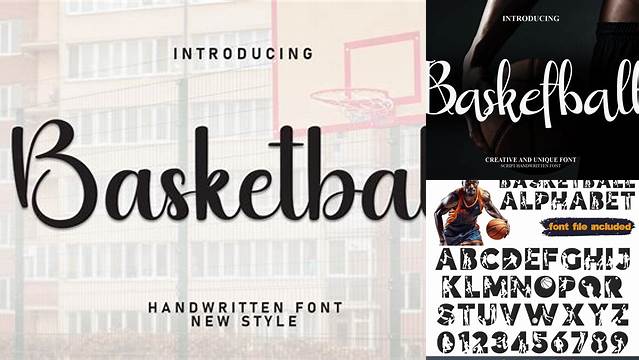
Hey guys! Are you looking to spice up your designs with some dynamic and energetic fonts? If you’re a basketball enthusiast, a designer working on a sports-themed project, or just someone who loves the bold look of basketball-inspired typography, you’ve come to the right place. This article is your ultimate guide to finding and downloading free basketball font styles. We’ll cover everything from classic varsity fonts to modern, edgy designs, ensuring you find the perfect typeface to make your project a slam dunk! So, let's dribble into the world of basketball font style free downloads and explore the fantastic options available to you.
1. Classic Varsity Fonts for Basketball Designs
When you think of basketball, one of the first font styles that comes to mind is the classic varsity font. These fonts evoke a sense of tradition, teamwork, and athletic spirit. They’re perfect for jerseys, posters, and anything that needs a strong and sporty feel. The beauty of these fonts lies in their simplicity and legibility, making them ideal for both headings and body text. The blocky, sans-serif style is instantly recognizable and carries a timeless appeal that resonates with fans and players alike. If you are working on a project that requires conveying a sense of history and competitive spirit, then classic varsity fonts are an excellent choice. You can find a variety of free varsity fonts online, each with its unique twist. Some might have slightly rounded edges for a softer look, while others stick to the sharp, angular forms for a more assertive presence. Experiment with different weights and styles to find the perfect fit for your design. Remember, the goal is to capture the essence of basketball – its energy, its tradition, and its unwavering spirit of teamwork. So, go ahead and explore the world of classic varsity fonts and see how they can elevate your designs to a whole new level of sporty sophistication.
2. Modern and Edgy Basketball Lettering Styles
If classic isn't quite your vibe, no worries! The world of basketball font style free downloads also includes some seriously modern and edgy options. These fonts break away from the traditional varsity look, offering a more contemporary feel. Think sharp angles, bold strokes, and unique letterforms that scream energy and innovation. These styles are perfect for projects that need a modern twist, like social media graphics, promotional materials, or even a fresh take on team logos. What makes these fonts stand out is their ability to capture the fast-paced, dynamic nature of basketball. They often incorporate elements that mimic the movement of the ball, the swish of the net, or the intensity of the game. Imagine using a font with slanted lines to convey speed, or one with a slightly distressed texture to add a raw, urban edge. These modern styles allow you to push the boundaries of traditional design, creating visuals that are both eye-catching and impactful. So, if you're looking to inject some serious energy into your project, dive into the world of modern and edgy basketball lettering styles. You'll find a font that helps you convey the spirit of the game in a fresh and exciting way.
3. Free Basketball Jersey Fonts
When designing a basketball jersey, the font you choose is just as important as the team colors and logo. The font needs to be legible, bold, and instantly recognizable, reflecting the team's identity and spirit. Luckily, there are tons of free basketball jersey fonts available for download. These fonts often feature thick strokes and a strong presence, ensuring they stand out on the jersey. Many of these fonts are inspired by classic athletic lettering, but with modern twists that make them perfect for today's teams. Think of fonts with a slight slant to convey speed, or those with a subtle texture to add a vintage feel. The key is to choose a font that not only looks great but also embodies the team's personality. Is the team known for its aggressive playstyle? A bold, sharp font might be the perfect fit. Or is the team more about teamwork and strategy? A classic, clean font could be a better choice. So, take the time to explore the different options and find a font that truly represents your team. Remember, the right font can make a jersey look professional and inspire confidence on the court.
4. Best Basketball Font for Logos
Your team's logo is the face of your brand, and the font you use plays a crucial role in conveying your message. The best basketball font for logos needs to be versatile, memorable, and easily recognizable. It should capture the essence of your team's identity while remaining legible at various sizes. When choosing a font for your logo, consider the overall aesthetic you want to achieve. Are you aiming for a classic, timeless look? A varsity-style font might be the way to go. Or do you prefer a more modern and edgy feel? A bold, geometric font could be a better choice. It's also important to think about the font's personality. Does it convey strength, speed, or teamwork? The font should align with your team's values and culture. Beyond aesthetics, legibility is key. Your logo will be used in various contexts, from jerseys to merchandise to social media, so the font needs to be easily readable in all these applications. Experiment with different fonts, weights, and styles to find the perfect fit. And don't be afraid to get creative! Sometimes, a unique font can be the element that makes your logo truly stand out.
5. Downloadable Basketball Number Fonts
Numbers are a crucial part of any sports uniform, and choosing the right basketball number fonts can make a big difference in how your team looks on the court. Just like with jersey fonts, number fonts need to be legible, bold, and instantly recognizable. They also need to complement the team's overall aesthetic. Many free downloadable fonts are specifically designed for sports jerseys, offering a range of styles from classic block numbers to more modern, stylized designs. When selecting a number font, consider the size and shape of the numbers themselves. They should be large enough to be easily seen from a distance, and their shape should be consistent with the team's logo and lettering. Think about the spacing between the numbers as well. Too much space can make the numbers look disjointed, while too little space can make them hard to read. Experiment with different fonts and layouts to find the perfect combination. And don't forget to consider the color of the numbers in relation to the jersey color. The numbers should stand out clearly against the background, ensuring they're visible to players, coaches, and fans alike.
6. Free Basketball Font Generators
If you're feeling creative and want to design your own basketball-themed graphics, a free basketball font generator can be a fantastic tool. These online tools allow you to create custom text using a variety of basketball-inspired fonts. Simply type in your text, choose your font style, and customize the colors and effects. Many of these generators offer a range of options, from classic varsity fonts to more modern and edgy designs. You can experiment with different styles and layouts to create unique logos, banners, posters, and more. The best part is that these generators are often very user-friendly, even if you don't have any design experience. You can quickly and easily create professional-looking graphics in just a few minutes. However, it's important to check the licensing terms of the fonts generated by these tools. Some fonts may be free for personal use but require a commercial license for business projects. Always make sure you're using the fonts legally to avoid any copyright issues. But overall, font generators are a great way to unleash your creativity and add a personal touch to your basketball-themed designs.
7. Varsity Font Style Free Download for Basketball
As we've touched on before, varsity fonts are a cornerstone of basketball typography. The varsity font style free download options available are abundant, ranging from classic, straightforward designs to slightly modified versions with unique flairs. These fonts often evoke a sense of tradition and school spirit, making them a perfect fit for high school and college basketball teams. They're also great for any project that needs a bold, athletic feel. When choosing a varsity font, think about the specific look you're going for. A classic block letter varsity font conveys a sense of timelessness and strength. It's a reliable choice for jerseys, posters, and team logos. However, if you want something a little more modern, you might consider a varsity font with rounded edges or a slight slant. These variations can add a touch of personality while still maintaining the classic varsity feel. Also, consider the weight of the font. A heavier font will appear more imposing, while a lighter font can feel more streamlined and modern. Experiment with different weights and styles to find the perfect varsity font for your project. The key is to choose a font that not only looks great but also aligns with the overall aesthetic you want to achieve.
8. Basketball Team Font Styles
Finding the perfect basketball team font styles is crucial for establishing a strong and consistent brand identity. Your team's font should reflect its personality, values, and competitive spirit. It should also be legible and versatile, working well on jerseys, logos, websites, and other marketing materials. When choosing a font for your team, start by considering your team's brand. What message do you want to convey? Are you a team known for your aggressive playstyle? A bold, sharp font might be a good fit. Or are you a team that emphasizes teamwork and strategy? A more classic and balanced font might be a better choice. It's also important to think about your team's history and tradition. If you have a long and storied history, a classic varsity font could be a great way to honor that legacy. However, if you're a newer team looking to make a statement, a more modern and edgy font might be more appropriate. Once you have a good idea of your team's brand, start exploring different font options. Look at a variety of styles, from classic to modern, and see what resonates with you. Don't be afraid to experiment and try something new. The goal is to find a font that not only looks great but also captures the essence of your team's identity.
9. Sports Font for Basketball Designs
In the realm of design, the right sports font for basketball designs can be a game-changer. It's about finding a typeface that not only captures the essence of the sport but also elevates the overall aesthetic of your project. Whether you're crafting a team logo, designing a jersey, or creating promotional materials, the font you choose plays a pivotal role in conveying the energy, passion, and spirit of basketball. When it comes to sports fonts, versatility is key. You need a font that's legible, impactful, and able to work across various applications. Classic varsity fonts, with their bold, blocky letters, are a perennial favorite for their timeless appeal and ability to evoke a sense of tradition and athleticism. However, the world of sports typography extends far beyond the varsity style. Modern, geometric fonts can bring a sleek, contemporary edge to your designs, while script fonts can add a touch of flair and dynamism. Consider the specific context of your project when making your font selection. A logo might call for a bold, distinctive font that commands attention, while a jersey might benefit from a more legible and streamlined typeface. Think about the overall message you want to convey and choose a font that aligns with your vision. Remember, the right sports font can transform your basketball designs from good to great, so take the time to explore your options and find the perfect fit.
10. Basketball Font for T-Shirts
Designing a basketball-themed t-shirt? The font you choose can make or break your design. A great basketball font for t-shirts should be legible, visually appealing, and able to withstand the printing process. It also needs to align with the overall message and style of your shirt. When selecting a font for a t-shirt, legibility is paramount. The font needs to be easily readable, even from a distance. Bold, sans-serif fonts are often a good choice for this reason. Varsity fonts, with their classic athletic aesthetic, are a popular option for basketball t-shirts. However, you're not limited to just varsity styles. Modern, geometric fonts can also work well, providing a clean and contemporary look. Script fonts can add a touch of flair, but be careful to choose one that's still legible when printed on fabric. Beyond legibility, consider the font's personality. Does it convey the energy and excitement of basketball? Or does it have a more classic and understated feel? The font should complement the other design elements on your shirt, such as logos, graphics, and colors. It's also important to consider the printing method you'll be using. Some fonts may not translate well to certain printing techniques. Always do a test print to ensure your font looks its best on the final product. With the right font, your basketball t-shirt will be a slam dunk!
11. Free Athletic Fonts for Basketball
Free athletic fonts for basketball designs are a fantastic resource for anyone looking to create impactful visuals without breaking the bank. These fonts are specifically designed to capture the energy, dynamism, and competitive spirit of sports, making them ideal for a wide range of projects. Whether you're designing a team logo, creating promotional posters, or crafting social media graphics, the right athletic font can elevate your work and help you connect with your audience. One of the most popular styles of athletic fonts is the classic varsity font. These fonts, with their bold, blocky letters, evoke a sense of tradition and teamwork. They're perfect for projects that need a strong, athletic feel. However, there are many other types of athletic fonts available, each with its own unique personality. Modern, geometric fonts can bring a sleek and contemporary edge to your designs, while script fonts can add a touch of flair and dynamism. When choosing an athletic font, consider the overall tone and message of your project. A bold, assertive font might be the best choice for a competitive team, while a more streamlined and modern font could be ideal for a fitness brand. Legibility is also key, especially if you're using the font for body text or smaller applications. Fortunately, there are numerous websites offering free downloads of high-quality athletic fonts, making it easier than ever to find the perfect typeface for your basketball-related designs.
12. Bold Fonts for Basketball Posters
When designing basketball posters, bold fonts are your best friend. They command attention, convey energy, and ensure your message is seen loud and clear. A well-chosen bold font can be the difference between a poster that fades into the background and one that jumps off the wall and grabs your attention. Basketball, by its very nature, is a sport of high energy and intense action. Your posters should reflect this dynamism, and a bold font is a perfect way to achieve this. Think about the kind of message you want to convey. Are you promoting a high-stakes game? A super bold, blocky font will communicate the intensity of the competition. Are you highlighting a star player? A strong, confident font will showcase their talent and charisma. There are countless bold font options to choose from, each with its own unique personality. Classic varsity fonts are always a solid choice for their timeless appeal and athletic feel. However, don't be afraid to explore other styles. Geometric sans-serif fonts can bring a modern edge to your designs, while even some serif fonts, with their strong serifs, can make a bold statement. The key is to choose a font that's not only visually impactful but also legible. Your message won't be effective if people can't read it. Experiment with different font pairings and layouts to create a poster that's both bold and visually appealing. With the right bold font, your basketball posters will be sure to make a slam dunk impression.
13. Best Fonts for Basketball Flyers
Creating a flyer that stands out requires the best fonts for basketball flyers. You need a font that grabs attention, communicates the event's details clearly, and reflects the energy of the game. Flyers are often the first point of contact with potential attendees, so your font choice is crucial in making a strong impression. Think about the purpose of your flyer. Are you promoting a youth league signup? A professional game? A charity event? The font should align with the overall tone and style of the event. For youth leagues, a fun, slightly playful font might be appropriate, while professional games might call for a more serious and impactful typeface. Legibility is paramount when designing flyers. The font needs to be easily readable at a glance, even from a distance. Bold fonts, with their strong presence, are a popular choice for headlines and key information. However, don't overlook the importance of body text. A clean, legible sans-serif font is often the best choice for conveying detailed information like dates, times, and locations. Consider the hierarchy of information on your flyer. Use different font sizes and weights to create visual interest and guide the reader's eye. A bold, large font for the headline, followed by smaller, more legible fonts for supporting details, is a common and effective approach. Don't be afraid to experiment with different font pairings and layouts. The goal is to create a flyer that's not only informative but also visually appealing and memorable. With the right fonts, your basketball flyers will be sure to draw a crowd.
14. Free Sport Fonts for Basketball Teams
If you're looking to create a cohesive and impactful brand identity for your team, free sport fonts for basketball teams are a valuable resource. A well-chosen font can communicate your team's personality, values, and competitive spirit, making it an essential element of your overall branding. When selecting a font for your team, start by considering your team's identity. What kind of image do you want to project? Are you a team known for your aggressive play and intensity? A bold, sharp font might be a good fit. Or are you a team that emphasizes teamwork and strategy? A more classic and balanced font could be a better choice. Think about your team's history and tradition as well. A classic varsity font might be a great way to honor your legacy, while a modern font could signal a fresh, new approach. Versatility is key when choosing a font for your team. You need a font that will work well across various applications, from jerseys and logos to websites and social media graphics. Legibility is also crucial, especially for jersey numbers and team names. Fortunately, there are many websites offering free downloads of high-quality sport fonts that are perfect for basketball teams. Take the time to explore your options and find a font that truly captures the essence of your team. With the right font, you can create a brand identity that's both memorable and impactful.
15. Basketball Themed Fonts Free
Unleash your creativity with basketball themed fonts free for download! These fonts are perfect for adding a sporty and energetic touch to your designs, whether you're working on a team logo, a poster, or a social media graphic. Basketball-themed fonts come in a variety of styles, from classic varsity fonts to modern and edgy designs. This means you can find a font that perfectly matches the tone and style of your project. Varsity fonts, with their bold, blocky letters, are a popular choice for their timeless appeal and athletic feel. They evoke a sense of tradition and teamwork, making them ideal for projects related to school and college basketball. However, don't limit yourself to just varsity fonts. Modern, geometric fonts can bring a sleek and contemporary edge to your designs, while script fonts can add a touch of flair and dynamism. When choosing a basketball-themed font, consider the overall message you want to convey. Are you promoting a high-stakes game? A super bold font will communicate the intensity of the competition. Are you designing a logo for a youth team? A more playful font might be a better choice. Legibility is always important, so make sure the font is easy to read, especially in smaller sizes. There are numerous websites offering free downloads of basketball-themed fonts, so take the time to explore your options and find the perfect typeface for your next project. With the right font, you can create designs that are both visually appealing and impactful.
16. Free Fonts for Basketball Logos
Your logo is the face of your team or brand, making the selection of free fonts for basketball logos a critical decision. The font you choose should not only be visually appealing but also effectively communicate your team's identity and values. A well-chosen font can elevate your logo from ordinary to outstanding, making it memorable and impactful. When selecting a font for your basketball logo, start by considering your team's personality. What kind of image do you want to project? Are you a team known for your aggressive play and intensity? A bold, sharp font might be a good fit. Or are you a team that emphasizes teamwork and strategy? A more classic and balanced font could be a better choice. Think about your target audience as well. Are you designing a logo for a youth team? A playful and energetic font might be appropriate. Or are you creating a logo for a professional team? A more sophisticated and impactful font might be necessary. Legibility is crucial for logos, as they will be used in various sizes and applications. The font needs to be easily readable, even in small sizes, to ensure your logo is recognizable across different platforms. Classic varsity fonts are a popular choice for basketball logos due to their timeless appeal and athletic feel. However, don't be afraid to explore other options. Modern, geometric fonts can bring a contemporary edge to your logo, while script fonts can add a touch of flair and dynamism. The key is to choose a font that not only looks great but also aligns with your team's brand and values. With the right font, your basketball logo will be sure to make a lasting impression.
17. Basketball Font Download Free for Windows
For Windows users, finding the perfect basketball font download free for Windows is essential to elevate your design projects. These fonts allow you to infuse the energy and spirit of basketball into your creations, whether you're working on team logos, posters, flyers, or social media graphics. The versatility of these fonts means you can capture the essence of the sport across various mediums. When searching for basketball fonts compatible with Windows, consider the style that best reflects your project's theme. Classic varsity fonts, renowned for their bold and blocky design, evoke tradition and teamwork, making them ideal for projects emphasizing athletic history and school spirit. For a more contemporary feel, explore modern geometric fonts that offer clean lines and a sharp aesthetic. Script fonts can add a touch of flair, perfect for projects needing a dynamic and creative touch. Ensure the font's legibility, especially when used in smaller sizes or on merchandise like jerseys. The best fonts remain clear and impactful, ensuring your message is always conveyed effectively. Many websites offer free downloads of basketball-themed fonts specifically for Windows, providing a wide range of options to suit your needs. Always check the licensing agreements to ensure the font is free for your intended use, whether personal or commercial. By selecting the right font, you can transform your basketball-themed designs into visually compelling pieces that resonate with your audience.
18. Basketball Font Style Generator
Creating unique and eye-catching designs is easy with a basketball font style generator. These tools are invaluable for designers and enthusiasts alike, allowing you to customize text with a variety of basketball-inspired fonts. A font style generator simplifies the process of experimenting with different typefaces, sizes, colors, and effects, ensuring your designs capture the perfect sporty aesthetic. Using a basketball font style generator, you can quickly produce logos, banners, posters, and more, tailored to your specific needs. The flexibility offered by these generators allows you to explore various font styles, from classic varsity looks to modern, edgy designs, ensuring your project stands out. The best font style generators provide a user-friendly interface, making it simple to input your text and preview different font options in real-time. This allows for efficient tweaking and adjustments, ensuring the final result aligns perfectly with your vision. Customization options often include font size, color, letter spacing, and special effects like outlines and shadows, providing a comprehensive toolkit for font creation. Before finalizing your design, it's important to check the licensing terms associated with the generated fonts. Some fonts may be free for personal use but require a commercial license for business applications. Always ensure compliance with the font's usage rights to avoid any legal issues. A basketball font style generator is an excellent resource for anyone looking to add a personalized touch to their basketball-themed designs, offering endless possibilities for creativity and visual impact.
19. Stylish Basketball Fonts Free Download
Finding stylish basketball fonts free download options can significantly enhance your design projects, adding a touch of flair and dynamism. The right font can transform a simple design into a visually striking piece, capturing the essence of basketball's energy and excitement. Stylish basketball fonts are available in a wide range of designs, from traditional varsity styles to contemporary and unique typefaces, catering to diverse creative needs. When selecting a stylish font, consider the overall aesthetic you aim to achieve. Classic varsity fonts are timeless choices, conveying a sense of heritage and athletic tradition. These fonts are particularly effective for team logos, jerseys, and school-related projects. For a modern and edgy look, explore geometric sans-serif fonts that offer clean lines and a bold presence. These fonts are ideal for posters, social media graphics, and promotional materials that require a contemporary feel. Script fonts can also add a touch of elegance and creativity to your designs, but ensure they remain legible and align with the overall theme. Legibility is a key factor when choosing stylish fonts, particularly for body text and smaller applications. The font should be easily readable to ensure your message is conveyed effectively. Many websites offer a variety of stylish basketball fonts for free download, providing ample options to suit your project's needs. Always review the font's licensing terms to ensure it aligns with your intended use, whether for personal or commercial projects. By incorporating stylish basketball fonts into your designs, you can create visually compelling and impactful visuals that truly stand out.
20. Unique Fonts for Basketball Designs
To truly set your designs apart, explore unique fonts for basketball designs that offer a fresh and distinctive look. These fonts move beyond the traditional, providing creative and innovative options that capture the spirit of basketball in novel ways. A unique font can transform an ordinary design into an extraordinary one, making it memorable and impactful. The key to selecting a unique font is to consider the message and aesthetic you want to convey. Think about the overall tone of your project and choose a font that complements it perfectly. For instance, a vintage-inspired font can add a nostalgic touch, while a futuristic font can convey innovation and modernity. When working on a logo or branding project, a unique font can help your team or organization stand out from the competition. It can create a strong visual identity that resonates with your audience. For posters and promotional materials, a unique font can grab attention and make your message more memorable. Explore different font categories, such as handwritten, display, and geometric fonts, to discover unique typefaces that align with your vision. Handwritten fonts can add a personal and artistic touch, while display fonts are designed to make a statement. Geometric fonts offer a clean and modern aesthetic. While exploring unique fonts, legibility should remain a priority. Ensure the font is readable, especially in smaller sizes and across various applications. Numerous resources offer unique fonts for basketball designs, both free and premium. Take the time to browse these collections and find the perfect typeface to elevate your project. Using unique fonts, you can create basketball designs that are visually compelling, memorable, and truly one-of-a-kind.
21. Basketball Font for Cricut
If you're a crafting enthusiast looking to personalize basketball-themed projects, finding the right basketball font for Cricut is essential. Cricut machines are popular for creating custom designs on various materials, and the font you choose can significantly impact the final outcome. A suitable font for Cricut needs to be clean, legible, and easy to cut, ensuring your projects look professional and polished. When selecting a font for Cricut, consider the type of project you're working on. For team jerseys, banners, or posters, bold and straightforward fonts like varsity styles are ideal. They offer excellent legibility and a sporty aesthetic that resonates with basketball themes. For more intricate designs, such as personalized gifts or decorative items, script or handwritten fonts can add a unique touch. However, ensure these fonts are not too detailed, as overly complex designs may be difficult for the Cricut machine to cut accurately. Legibility is a primary consideration when choosing a font for Cricut. The font should be easy to read, even when cut in smaller sizes. Bold sans-serif fonts generally work well, as they provide clear lines and shapes. Test the font with your Cricut machine before finalizing your design to ensure it cuts smoothly and cleanly. This will help you avoid any issues with intricate details or small letters. There are numerous resources offering fonts compatible with Cricut, including both free and paid options. Explore different styles and experiment with various fonts to find the perfect fit for your project. By selecting the right basketball font for Cricut, you can create stunning, personalized items that showcase your love for the game.
22. Basketball Font for Silhouette
Similar to Cricut, Silhouette machines are widely used for crafting, and selecting the appropriate basketball font for Silhouette is crucial for successful projects. Silhouette machines excel at cutting intricate designs, making font choice a key factor in the final result. A good font for Silhouette should be easy to weed, cut cleanly, and maintain legibility, ensuring your basketball-themed creations look professional and polished. When choosing a font for Silhouette, think about the specific application. For apparel, such as t-shirts and jerseys, bold fonts like varsity or athletic styles are excellent choices. They offer strong visual impact and are easy to read, even from a distance. For more detailed projects, like decals or personalized items, script or display fonts can add a unique and stylish touch. However, be mindful of the font's complexity. Intricate fonts with many small details can be challenging to weed, so opt for designs that are relatively simple and clean. Legibility is a vital consideration for Silhouette projects. The font should be readable, even when cut in smaller sizes, to ensure your message is clear and effective. Bold sans-serif fonts are often a safe bet, as they provide clear lines and shapes that cut well. Before committing to a design, test the font with your Silhouette machine. This will help you identify any potential issues with cutting or weeding and allow you to make adjustments as needed. Many online resources offer fonts compatible with Silhouette, including both free and premium options. Explore different styles and experiment with various fonts to find the perfect fit for your project. By selecting the right basketball font for Silhouette, you can craft impressive, personalized creations that celebrate the sport.
23. Basketball Font for Canva
Canva is a popular graphic design platform, and choosing the right basketball font for Canva is essential for creating visually appealing designs. Canva offers a wide range of font options, but selecting a font that aligns with the basketball theme and your design goals is crucial. A good Canva font for basketball designs should be legible, visually impactful, and complement the overall aesthetic of your project. When selecting a font for Canva, consider the type of design you're working on. For posters and flyers, bold and eye-catching fonts are ideal. Varsity fonts, with their classic athletic appeal, are a great choice, as are modern sans-serif fonts that offer a clean and contemporary look. For social media graphics, ensure the font is legible on smaller screens. Clear and bold fonts will help your message stand out. For logos and branding materials, the font should reflect your team or organization's identity. Classic fonts convey tradition, while modern fonts project innovation. Script fonts can add a touch of personality, but use them sparingly to maintain legibility. Legibility is a key consideration when using Canva. The font should be easily readable, even in smaller sizes and across various devices. Canva's interface allows you to preview fonts in different sizes, making it easy to assess their readability. Experiment with different font pairings within Canva to create visually appealing and balanced designs. Combining a bold headline font with a simpler body text font can add depth and interest to your design. Canva offers a vast library of fonts, both free and premium, providing numerous options for your basketball-themed projects. Take the time to explore the different styles and find fonts that align with your vision. By selecting the right basketball font for Canva, you can create professional-looking designs that effectively communicate your message and celebrate the sport.
24. Basketball Font for Photoshop
Photoshop is a powerful tool for graphic design, and selecting the ideal basketball font for Photoshop is crucial for creating impactful visuals. The right font can enhance your designs, conveying the energy and excitement of basketball while maintaining legibility and visual appeal. A good Photoshop font for basketball designs should align with your project's theme, complement the imagery, and ensure your message is clearly communicated. When choosing a font for Photoshop, consider the context of your design. For posters and banners, bold and attention-grabbing fonts are essential. Classic varsity fonts are a popular choice for their athletic appeal, while modern sans-serif fonts can offer a contemporary edge. For social media graphics, prioritize legibility on smaller screens. Clean and bold fonts will ensure your message stands out in a crowded feed. For logos and branding materials, the font should reflect your team or organization's identity. Consider classic, modern, or script styles depending on your brand's personality. Photoshop offers extensive customization options, so you can adjust font size, color, spacing, and effects to achieve the perfect look. Experiment with different font combinations to create visual interest and hierarchy. Legibility is paramount in Photoshop designs. Ensure the font is readable, even when scaled to different sizes. Test your designs on various devices to confirm readability across platforms. Photoshop supports a wide range of font formats, allowing you to import and use both free and premium fonts. Explore online resources to find fonts that align with your basketball theme and design goals. By selecting the right basketball font for Photoshop, you can create visually stunning designs that effectively communicate your message and capture the spirit of the game.
25. How to Choose a Basketball Font
Selecting the right font is a critical step in any design project, and knowing how to choose a basketball font can significantly impact the final outcome. The font you choose should align with the project's purpose, complement the overall design, and effectively convey your message. Whether you're creating a team logo, poster, flyer, or social media graphic, the right font can enhance the visual appeal and impact. Start by considering the tone and message you want to convey. Are you aiming for a classic, sporty feel, or a more modern and edgy look? The font should reflect the overall aesthetic of your project. If you're working on a team logo or branding materials, the font should align with your team's identity and values. A strong, bold font might be suitable for a competitive team, while a more classic font could work well for a team with a long history. For promotional materials like posters and flyers, prioritize fonts that grab attention and are easy to read from a distance. Bold fonts and contrasting colors can help your message stand out. For digital designs, such as social media graphics, consider legibility on smaller screens. Clean and clear fonts will ensure your message is easily readable across various devices. Experiment with different font styles, such as varsity, sans-serif, script, and display fonts, to find the best fit for your project. Don't be afraid to try something new, but always prioritize legibility and overall visual appeal. Consider font pairings to create visual interest and hierarchy. Combining a bold headline font with a simpler body text font can add depth and balance to your design. Explore online resources and font libraries to find a wide range of options, both free and premium. Take the time to browse different fonts and test them in your designs before making a final decision. By following these guidelines, you can confidently choose a basketball font that enhances your designs and effectively communicates your message.
26. Where to Find Free Basketball Fonts
Knowing where to find free basketball fonts is essential for designers and enthusiasts looking to create impactful designs without spending a fortune. Numerous online resources offer a wide variety of high-quality basketball-themed fonts, making it easier than ever to find the perfect typeface for your project. Whether you're designing a team logo, poster, flyer, or social media graphic, access to free fonts can significantly enhance your creative process. One of the best places to start your search is with online font libraries. Websites like Google Fonts, Font Squirrel, and DaFont offer a vast selection of free fonts, including many that are suitable for basketball designs. These sites allow you to filter fonts by style, category, and license, making it easier to narrow down your options. Google Fonts is a particularly valuable resource, as it offers a wide range of open-source fonts that are free for both personal and commercial use. Font Squirrel is another excellent option, as it specializes in free fonts that are licensed for commercial use, ensuring you can use them in your projects without any licensing issues. DaFont is a popular choice for its extensive collection of user-submitted fonts, which includes many unique and creative options. When downloading fonts from any source, it's essential to check the licensing terms to ensure the font is free for your intended use. Some fonts may have restrictions on commercial use or require attribution. Many design blogs and websites also offer free font downloads as part of their resources. These sites often curate collections of high-quality fonts that are perfect for specific themes or projects. Social media groups and online forums dedicated to graphic design can also be valuable sources for finding free fonts. Members often share their favorite fonts and resources, providing a community-driven approach to font discovery. By exploring these resources, you can find a wealth of free basketball fonts to elevate your designs and bring your creative vision to life.
27. Using Basketball Fonts in Design Projects
Effectively using basketball fonts in design projects is crucial for creating visually compelling and thematic visuals. The right font can convey the energy, spirit, and competitive nature of basketball, enhancing the overall impact of your designs. Whether you're working on team logos, posters, flyers, or social media graphics, understanding how to integrate basketball fonts effectively is key to success. Start by considering the specific context of your project. The font you choose should align with the project's purpose and target audience. For example, a youth basketball league flyer might benefit from a playful and energetic font, while a professional team logo might require a more sophisticated and impactful typeface. Think about the overall tone and message you want to convey. A classic varsity font can evoke a sense of tradition and teamwork, while a modern sans-serif font can project a contemporary and dynamic feel. Script fonts can add a touch of personality, but they should be used sparingly to maintain legibility. Legibility is paramount when using basketball fonts. The font should be easily readable, even in smaller sizes and across various applications. Bold fonts are often a good choice for headlines and titles, while cleaner, simpler fonts can work well for body text. Consider the font's weight and spacing. A font that is too heavy or too light may be difficult to read, while improper spacing can make your text look cluttered or disjointed. Use font pairings to create visual interest and hierarchy. Combining a bold headline font with a simpler body text font can add depth and balance to your design. Pay attention to the color and contrast of your fonts. The font should stand out against the background, ensuring your message is clear and easily visible. Experiment with different font sizes and styles to create visual hierarchy and guide the viewer's eye. Highlight key information by using larger or bolder fonts, and use smaller fonts for secondary details. By following these guidelines, you can effectively use basketball fonts in your design projects to create visuals that are both appealing and impactful.
28. Tips for Pairing Basketball Fonts
Font pairing is an essential skill in design, and knowing tips for pairing basketball fonts can elevate your projects from good to great. Combining fonts effectively creates visual interest, hierarchy, and balance, making your designs more engaging and professional. When pairing fonts for basketball-themed projects, consider the overall aesthetic and message you want to convey. Start by choosing a primary font that aligns with the project's theme and purpose. This font will be used for headlines, titles, and other key elements. Next, select a secondary font that complements the primary font without overshadowing it. The secondary font should be used for body text, captions, and other supporting information. A general rule of thumb is to pair fonts that are different enough to create contrast but similar enough to maintain harmony. For example, you can pair a bold, eye-catching headline font with a simpler, more legible body text font. When pairing basketball fonts, consider using a classic varsity font as the primary font for a sporty and traditional feel. You can then pair it with a clean sans-serif font for the body text to ensure readability. Another approach is to pair a bold, modern sans-serif font with a script font for a touch of personality. However, use script fonts sparingly and ensure they remain legible, especially in smaller sizes. Avoid pairing fonts that are too similar, as this can create a visually monotonous and uninteresting design. Instead, look for fonts that have contrasting styles, weights, and proportions. Pay attention to the x-height of the fonts. The x-height refers to the height of the lowercase letters in a font. Pairing fonts with similar x-heights can create a more cohesive look. Use font pairing tools and resources to help you find compatible fonts. Websites like FontPair and Typewolf offer suggestions for font combinations that work well together. Experiment with different font pairings and test them in your designs to see how they look. Don't be afraid to try something new, but always prioritize legibility and overall visual appeal. By following these tips, you can master the art of font pairing and create basketball designs that are visually appealing and effective.
29. Common Mistakes to Avoid with Basketball Fonts
To create impactful and visually appealing designs, it's essential to know common mistakes to avoid with basketball fonts. Using fonts effectively is crucial for conveying your message and capturing the energy of basketball, but certain pitfalls can detract from your design's overall impact. Recognizing these mistakes and taking steps to avoid them will help you create professional and engaging visuals. One common mistake is using too many fonts in a single design. Cluttering your design with multiple typefaces can create a chaotic and confusing look. Stick to a maximum of two or three fonts, and ensure they complement each other well. Another mistake is choosing fonts that are not legible, especially in smaller sizes. The font should be easily readable, regardless of the application. Avoid overly decorative or intricate fonts for body text, as they can strain the reader's eyes. Ignoring font hierarchy is another common pitfall. Font hierarchy helps guide the viewer's eye and highlights key information. Use different font sizes, weights, and styles to create a clear visual structure in your design. Improper font pairing can also detract from your design's effectiveness. Avoid pairing fonts that are too similar, as this can create a monotonous look. Also, steer clear of fonts that clash or compete for attention. Inconsistent font usage across different design elements is a mistake to avoid. Maintain consistency in your font choices to create a cohesive and professional look. Use the same fonts for similar elements, such as headlines and body text, throughout your design. Overusing script fonts is another common error. Script fonts can add a touch of personality, but they should be used sparingly. Overuse can make your design look cluttered and difficult to read. Not considering the font's context is a mistake to avoid. The font you choose should align with the project's purpose and target audience. For example, a playful font might be suitable for a youth basketball league but not for a professional team's branding materials. By being mindful of these common mistakes, you can use basketball fonts effectively and create designs that are both visually appealing and impactful.
30. Future Trends in Basketball Typography
As the world of design evolves, so do the trends in typography, and understanding the future trends in basketball typography can help you create cutting-edge and impactful designs. Staying ahead of the curve in font selection ensures your projects remain fresh, engaging, and visually appealing. In the realm of basketball design, typography plays a crucial role in conveying the sport's energy, dynamism, and competitive spirit. Several emerging trends are shaping the future of basketball typography. One trend is the continued popularity of bold and impactful fonts. These fonts command attention and convey strength and confidence, making them ideal for headlines, titles, and branding materials. Expect to see more innovative and creative takes on classic bold styles, incorporating unique shapes, textures, and effects. Another trend is the rise of variable fonts. Variable fonts offer greater flexibility and customization options, allowing designers to adjust font weight, width, and other parameters within a single font file. This trend enables more dynamic and responsive typography, making it easier to create designs that adapt to different screen sizes and applications. Geometric and minimalist fonts are also gaining traction. These fonts offer a clean and modern aesthetic, making them well-suited for contemporary basketball designs. Expect to see more use of geometric shapes and clean lines in font design, creating a sense of sophistication and simplicity. Handwritten and script fonts will continue to add a personal and artistic touch to basketball typography. While script fonts should be used sparingly, expect to see more creative and expressive handwritten styles that convey personality and authenticity. The use of color and effects in typography is another trend to watch. Expect to see more experimentation with gradient colors, shadows, and other effects to enhance the visual impact of fonts. Technology will continue to play a significant role in the evolution of typography. AI-powered font generators and design tools are making it easier to create custom fonts and explore new typographic possibilities. By staying informed about these future trends, you can ensure your basketball designs remain visually appealing and impactful, capturing the essence of the sport in innovative and creative ways.